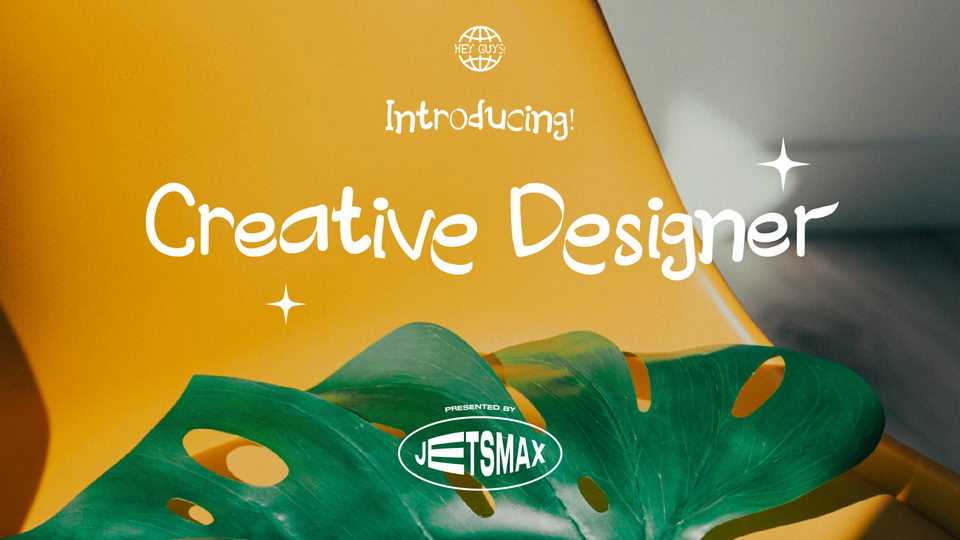
Download Creative Designer font, a typeface that represent you the most, a designer with unlimited creative ideas running around your head. With the unique combination of brush and hand writing style of this font, it will give your designs the authentic groovy look.
Designer: Jetsmax Studio